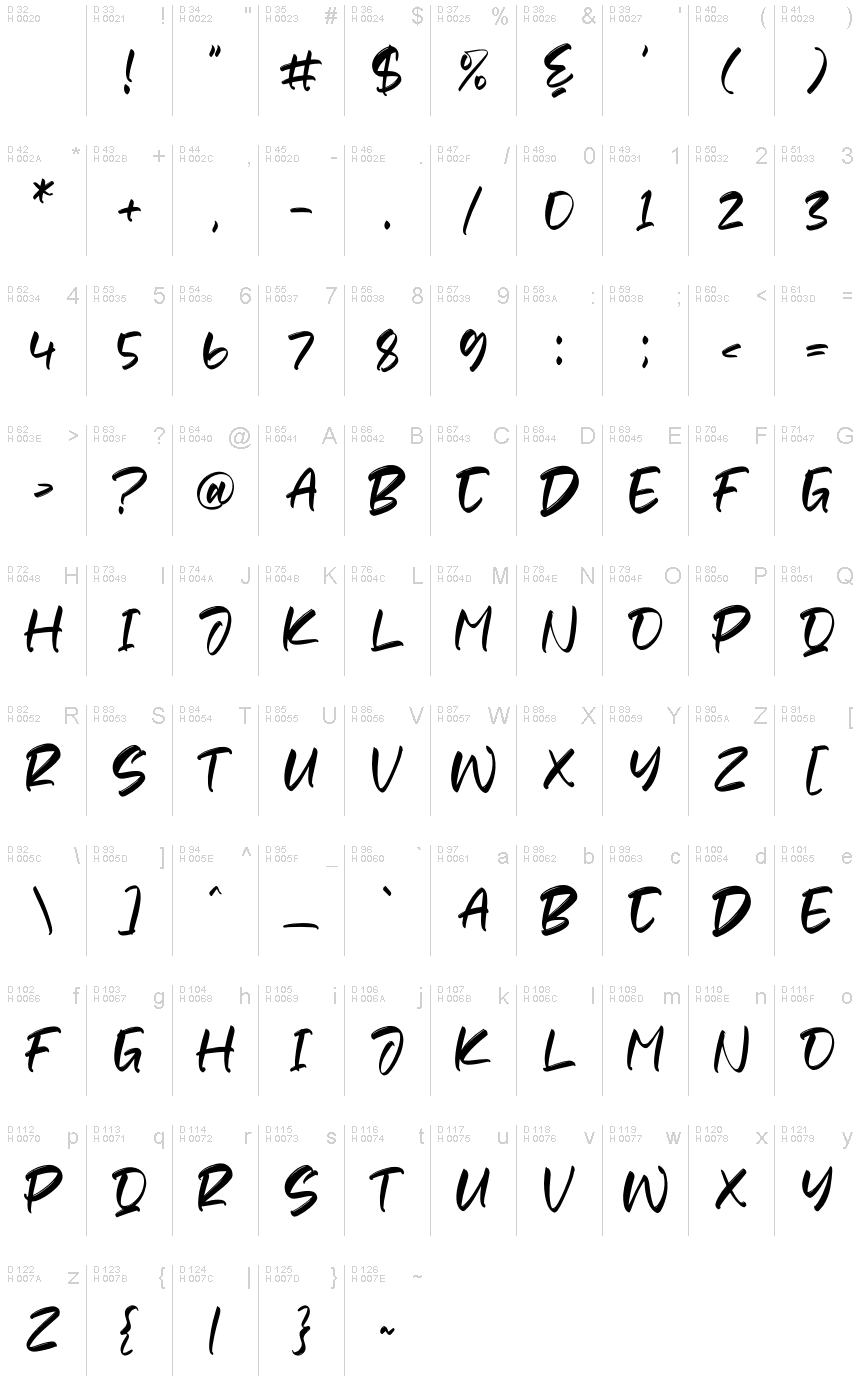
BADRICK
Badrick, a captivating brush-style font crafted by Perspectype Studio, exudes a striking, organic charm. Its bold, expressive strokes and fluid, handcrafted aesthetic effortlessly convey a sense of artistry and individuality. The font's dynamic, yet refined appearance lends itself to a wide range of design applications, seamlessly blending modern and vintage sensibilities.
Badrick's versatility shines through, making it a compelling choice for branding, packaging, editorial design, and even digital interfaces. Its distinct personality and impactful visual presence can elevate any project, from eye-catching headlines to elegant logo designs. Whether you seek to infuse your work with a touch of authenticity or create a memorable, distinctive aesthetic, Badrick's versatile nature ensures it will leave a lasting impression.